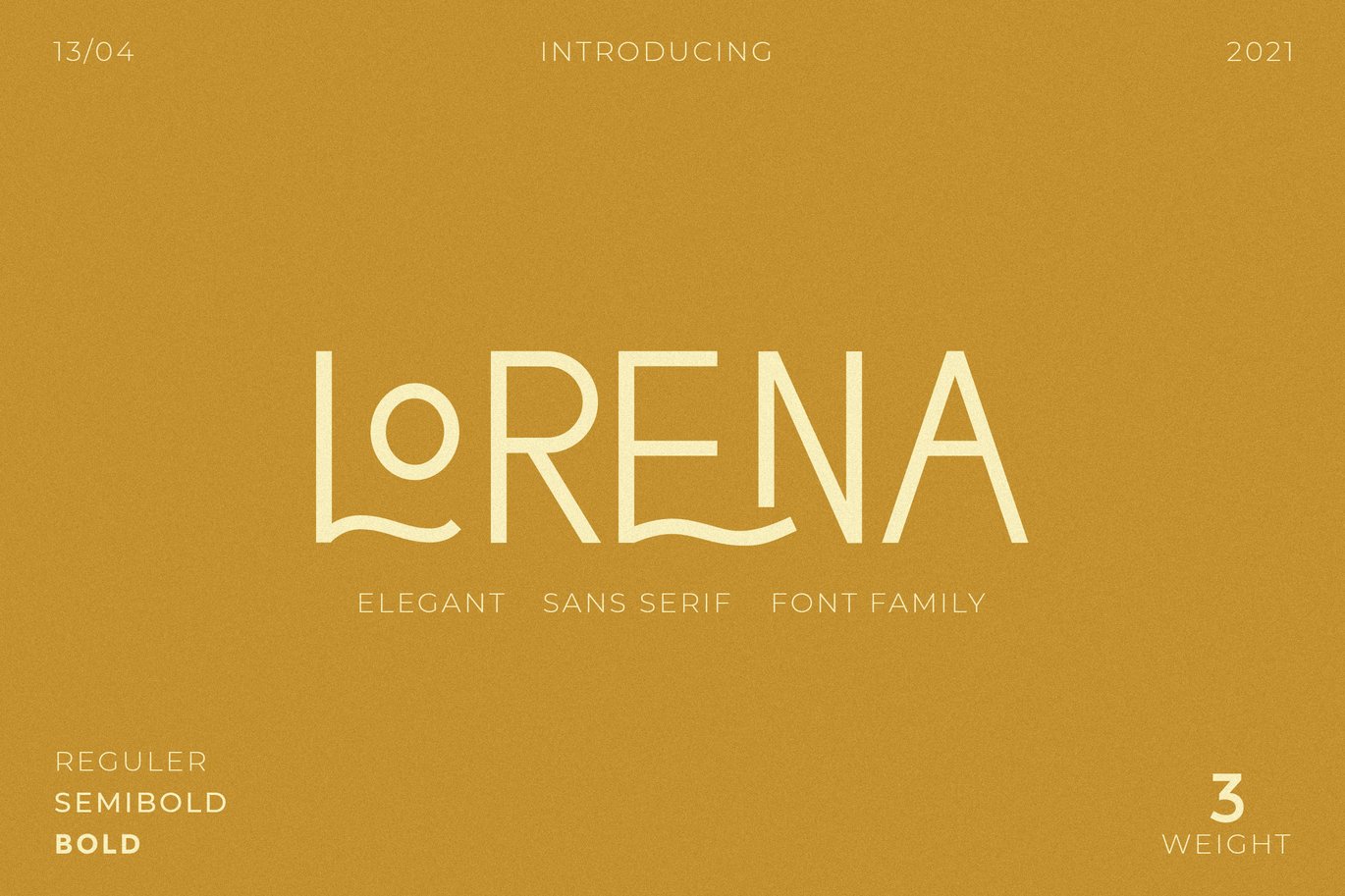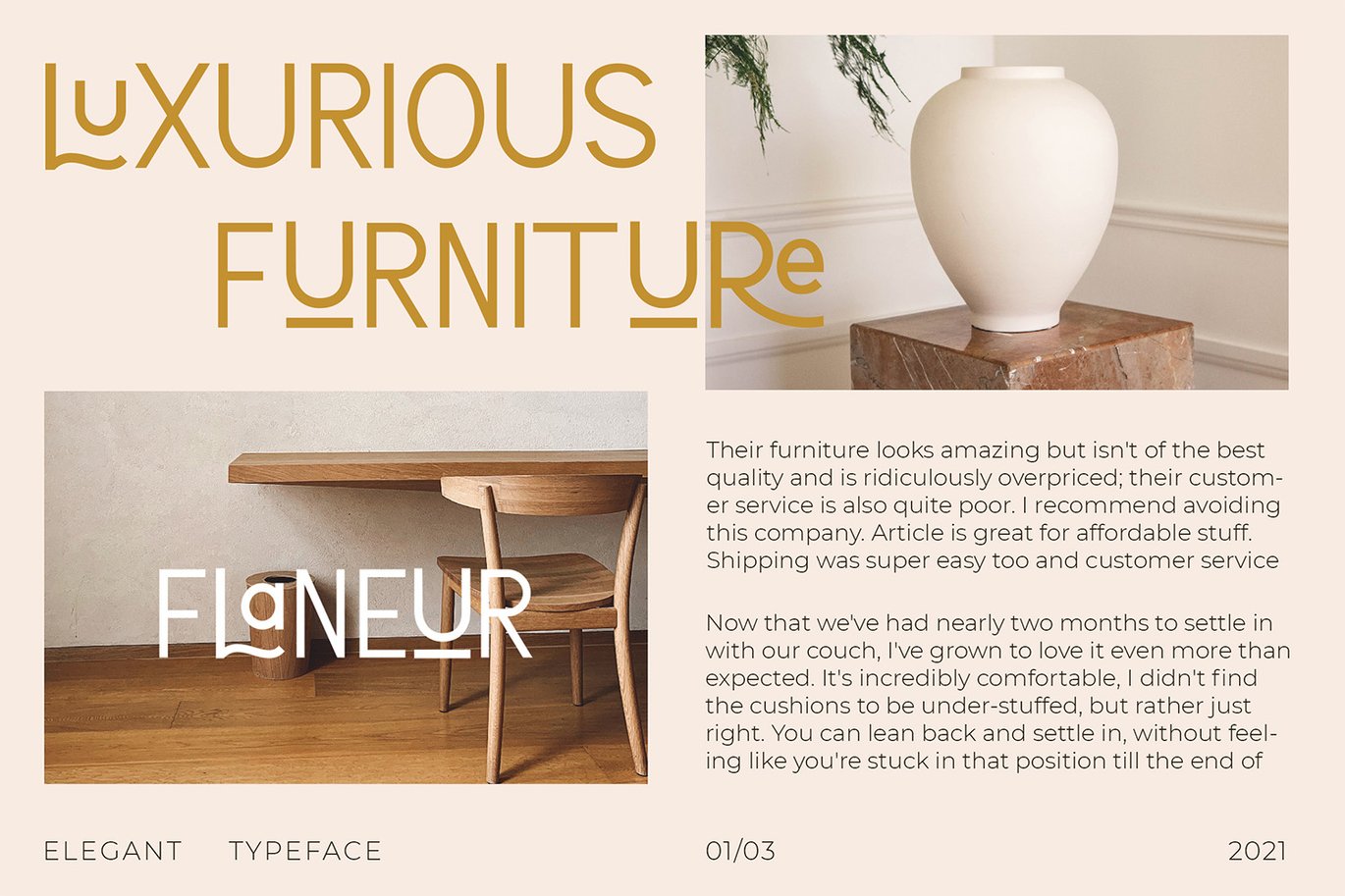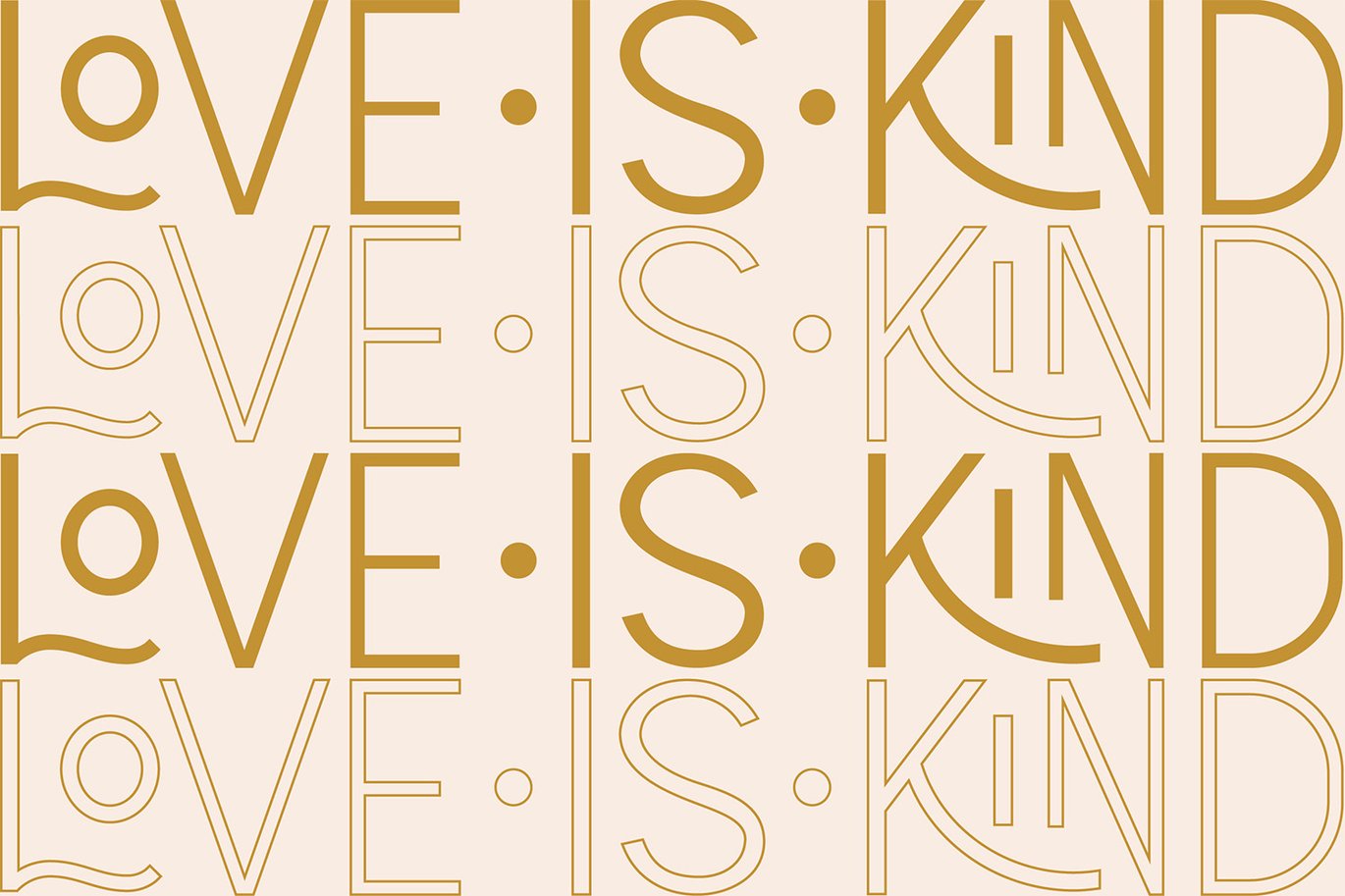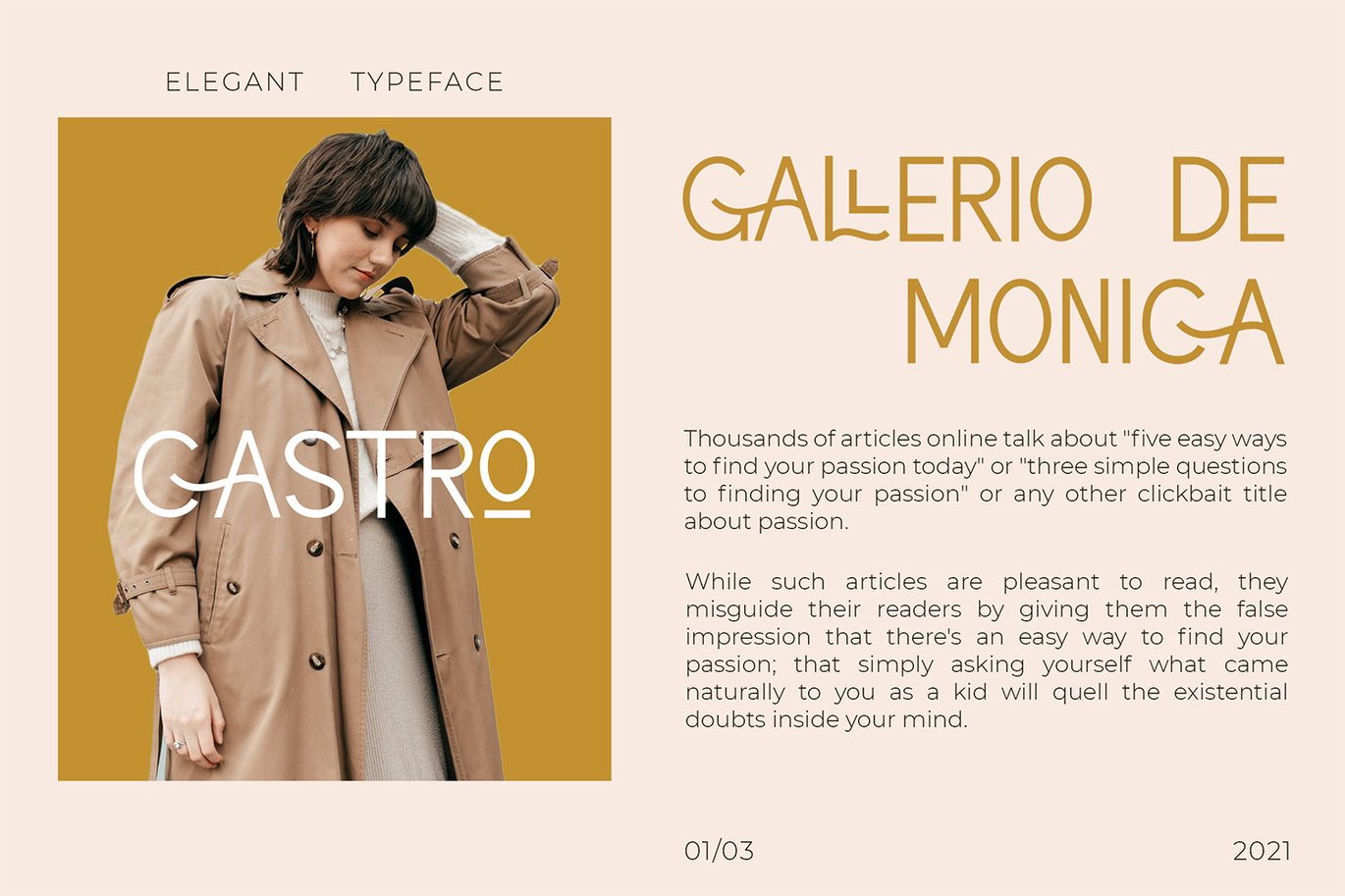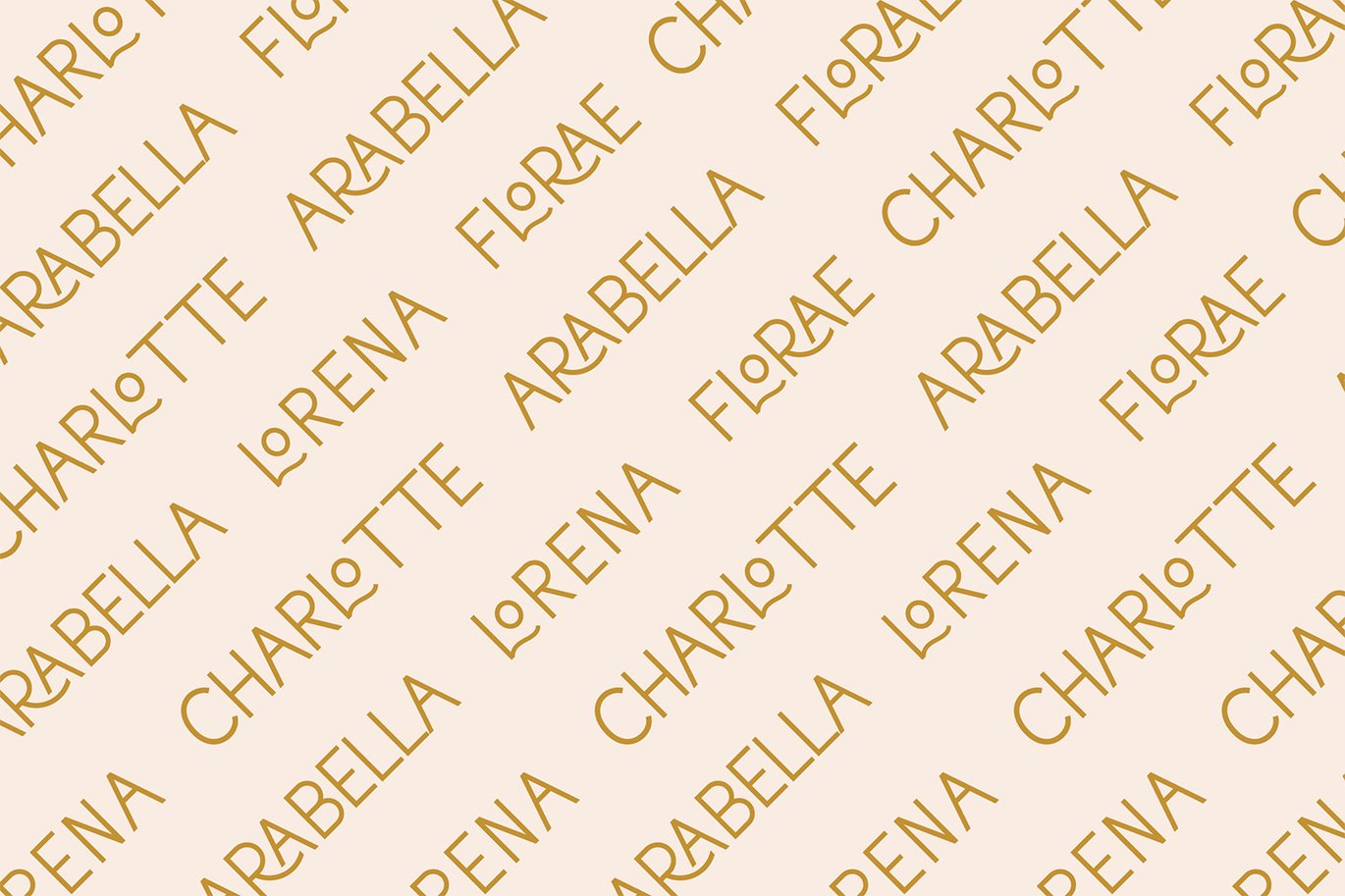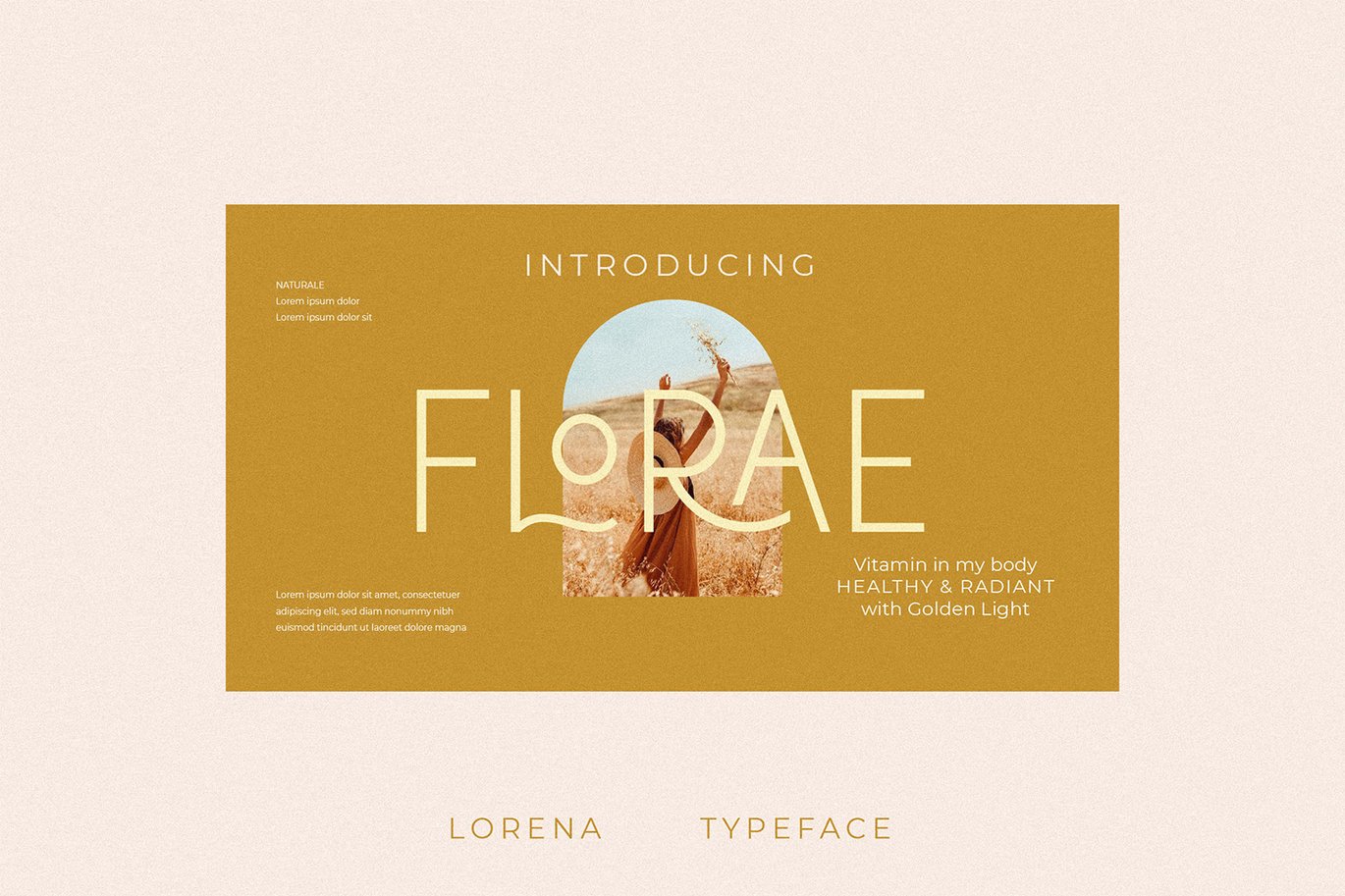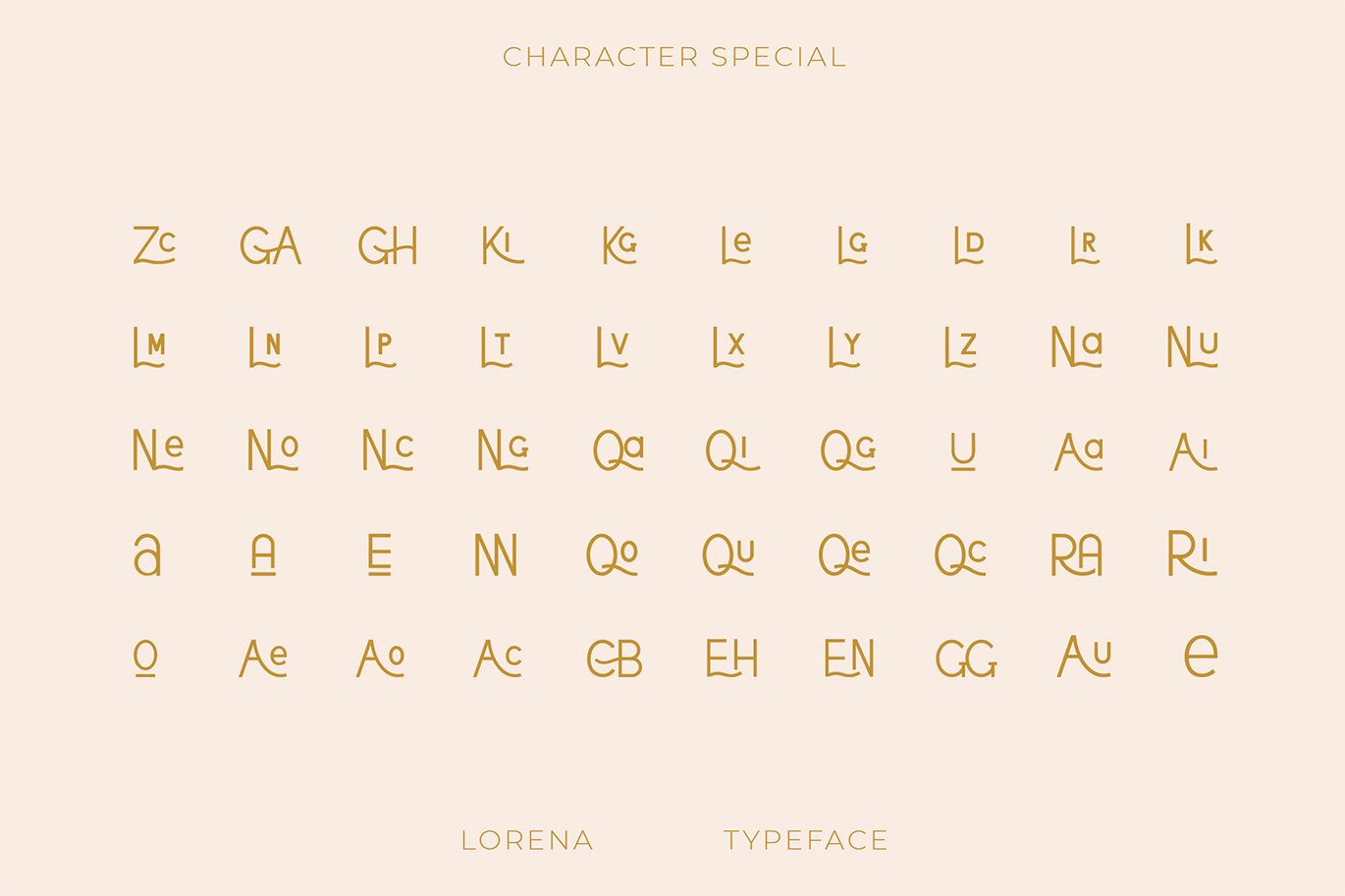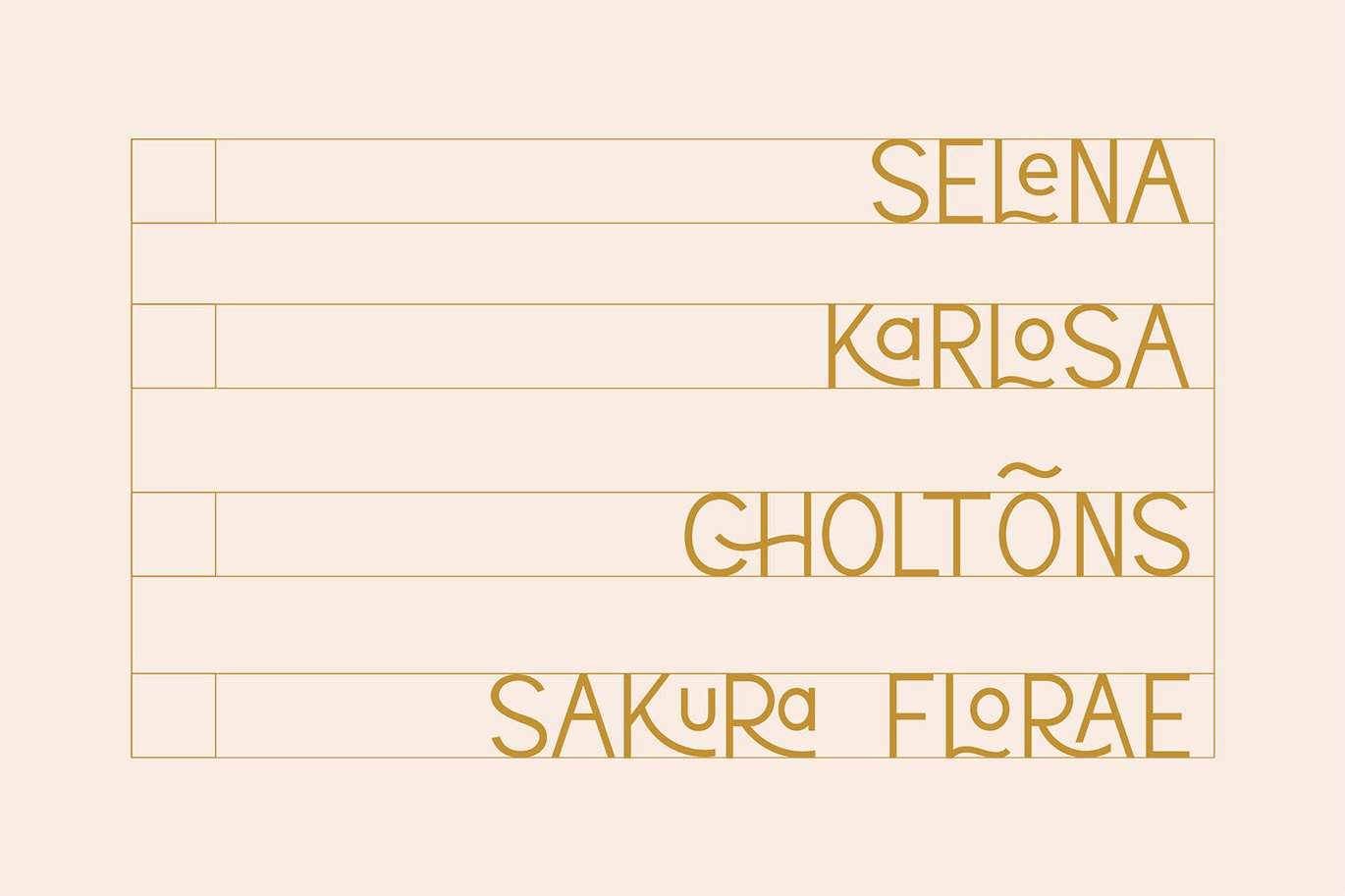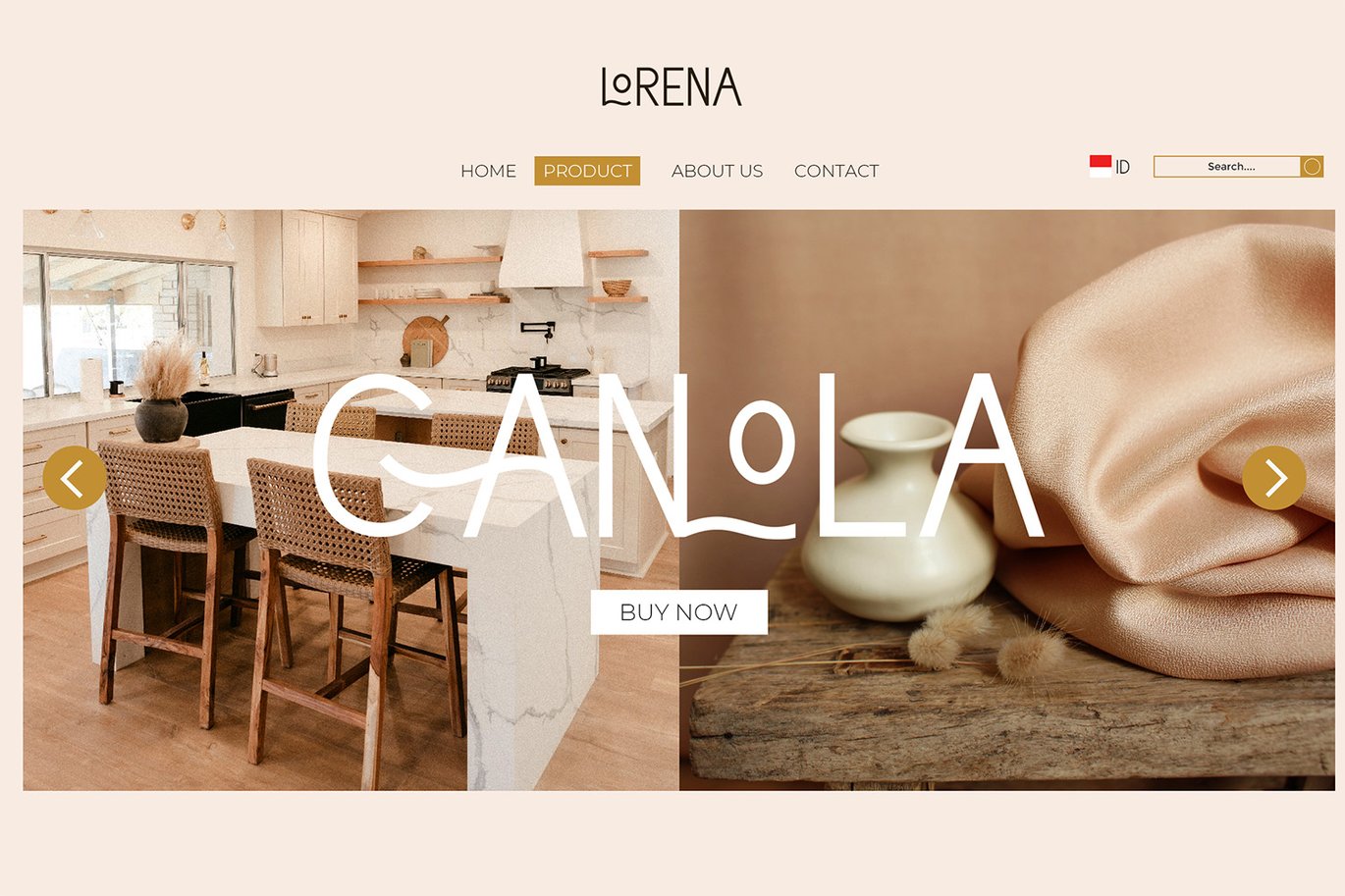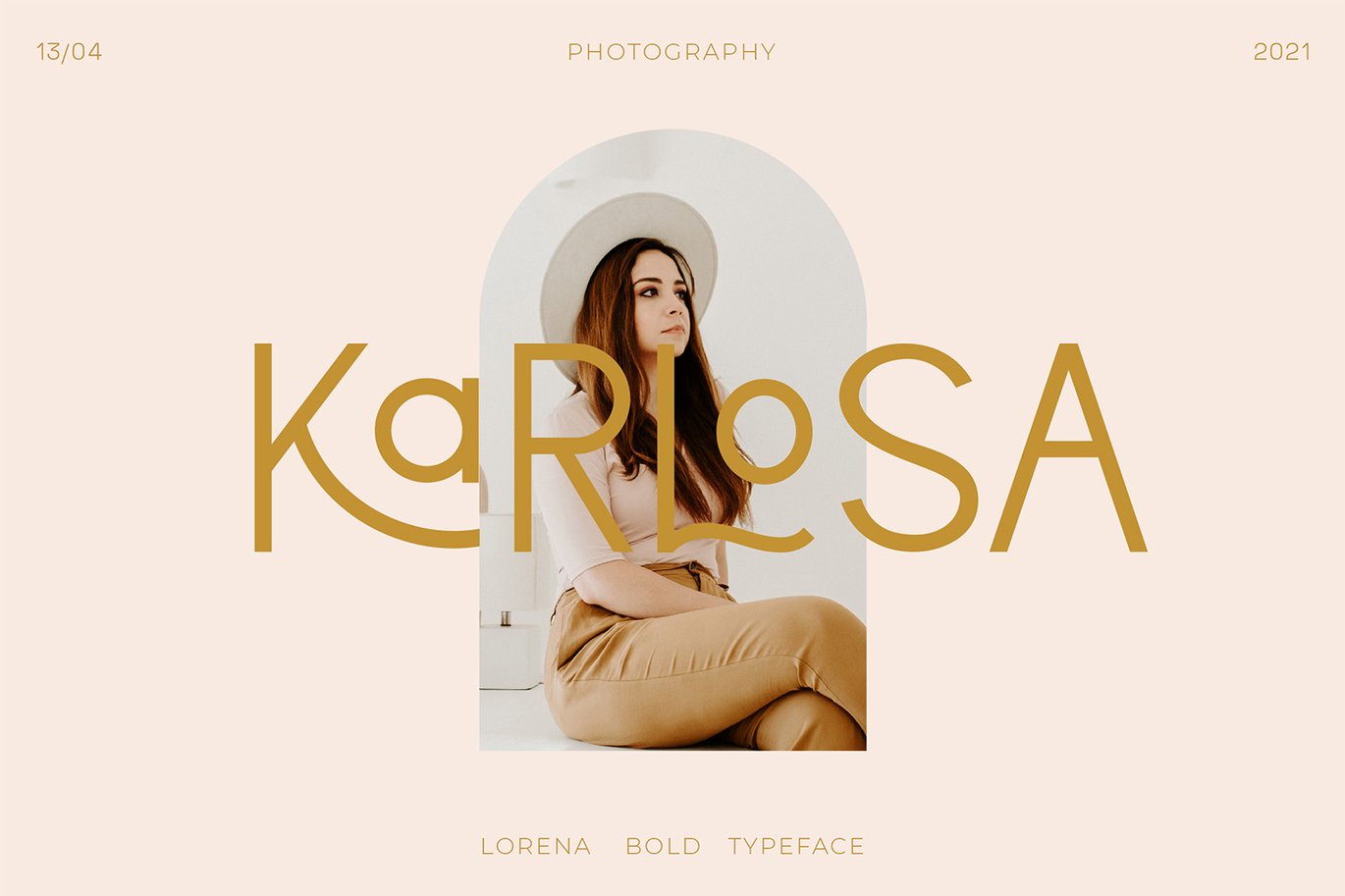
Lorena Sans – Simple Elegant Typeface
Lorena is a Minimalist Modern Elegant font with beautiful ligatures, tons of special alternative glyphs, ornament and multilingual support. It’s a very versatile font that works great in large and small sizes. Lorena Sans is perfect for branding projects, Logo design, Clothing Branding, product packaging, magazine headers, or simply as a stylish text overlay to any background image.
- 3 Weights font
- All caps
- Stylistic Alternates & Ligatures
- Accented characters
- Multiple Languages Supported